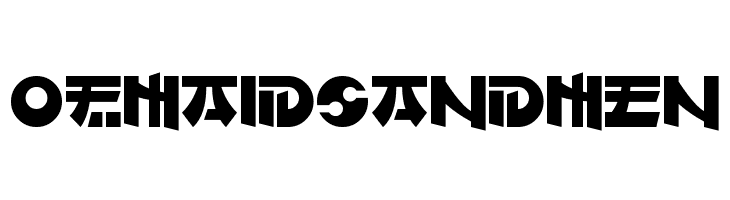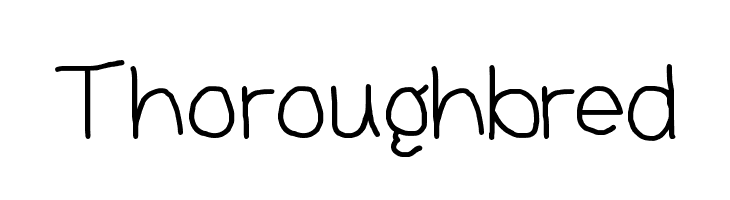
• West End Knights
A modern, geometric font with clean lines and a minimalist style.
• Unability
A bold, geometric font with a modern, industrial aesthetic.
• Summoners
A bold, geometric font with a futuristic and modern style.
• Thoroughbred
A playful, handwritten font with rounded, uniform strokes.
• Rollcage
A bold, geometric font with a modern and futuristic style.
• Anastasia
A playful, handwritten script font with interconnected characters.
• Of Maids and Men
A bold, geometric font with angular strokes and unique cut-out patterns, exuding a futuristic style.
• Ineptic
A bold, geometric font with strong, sharp angles and a modern style.
• Eviscera
A bold, geometric font with modern, rounded edges.
• Thundercover
A bold, angular font with a dynamic, lightning-inspired design.